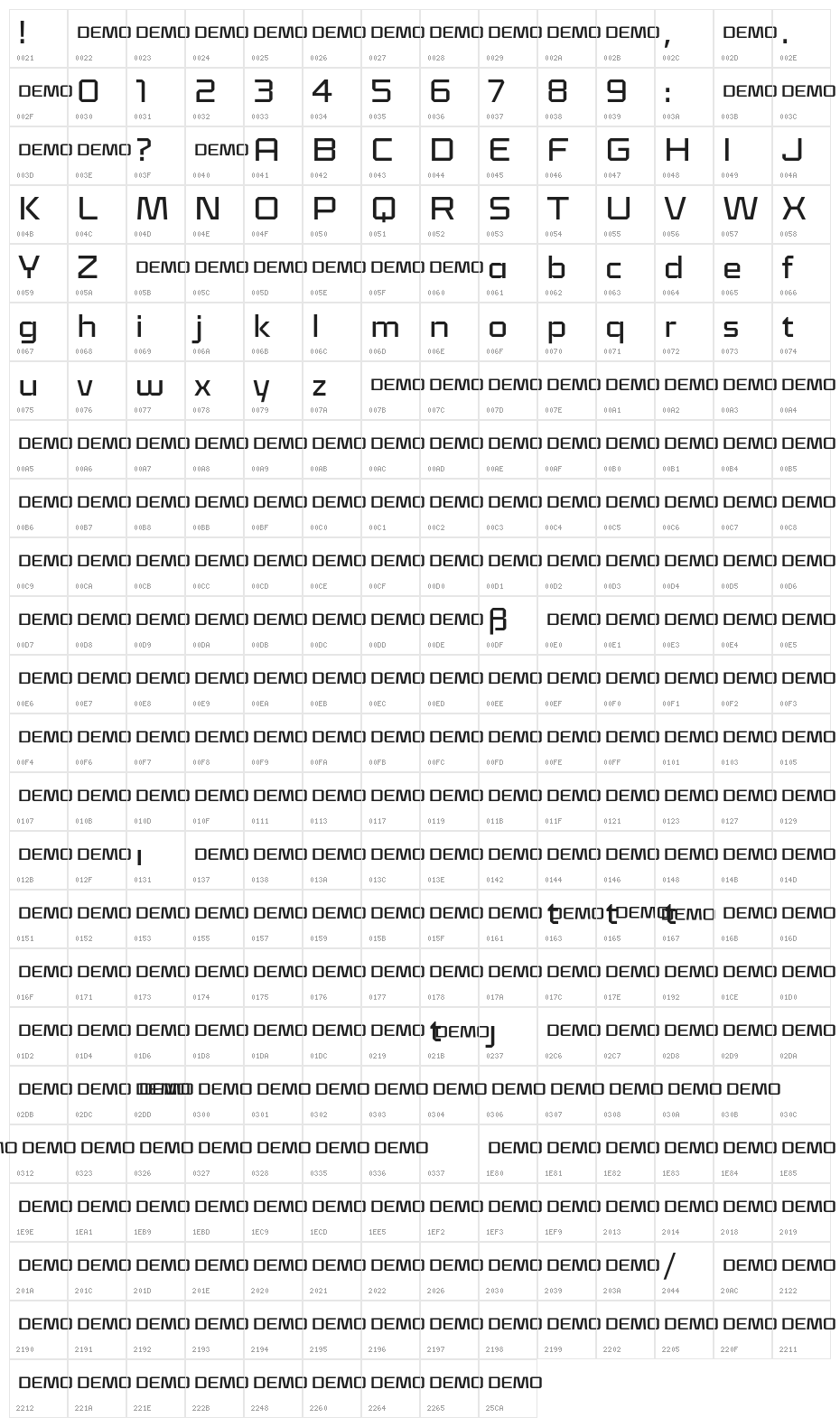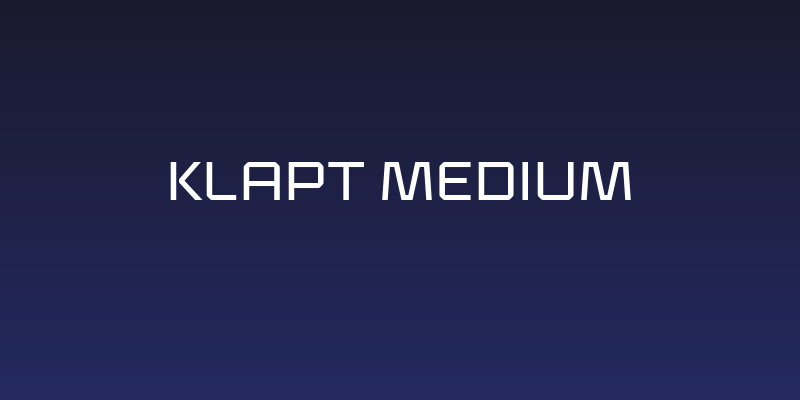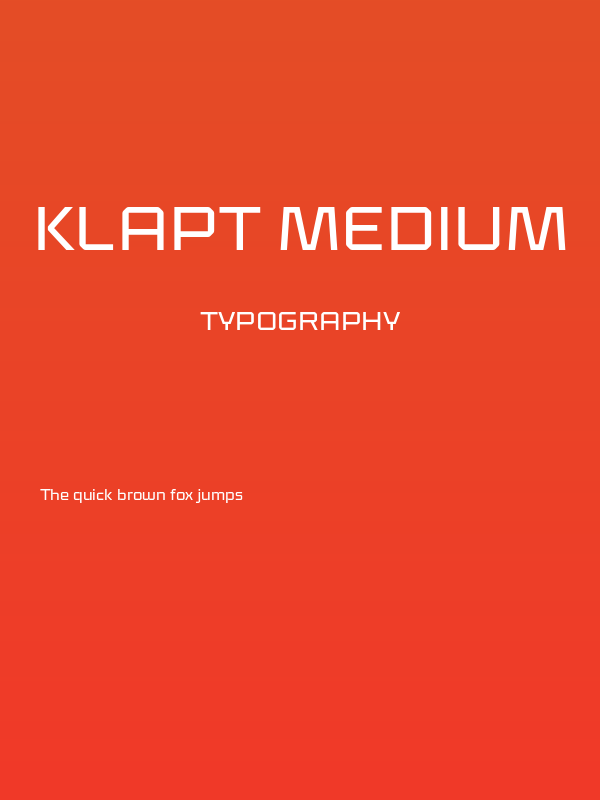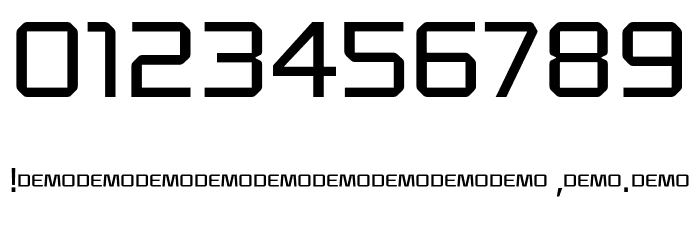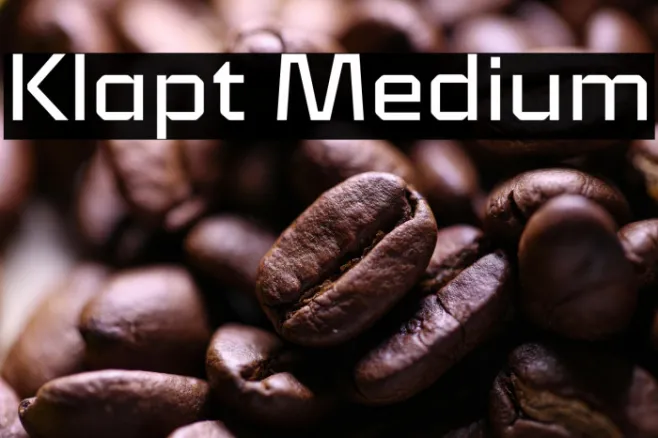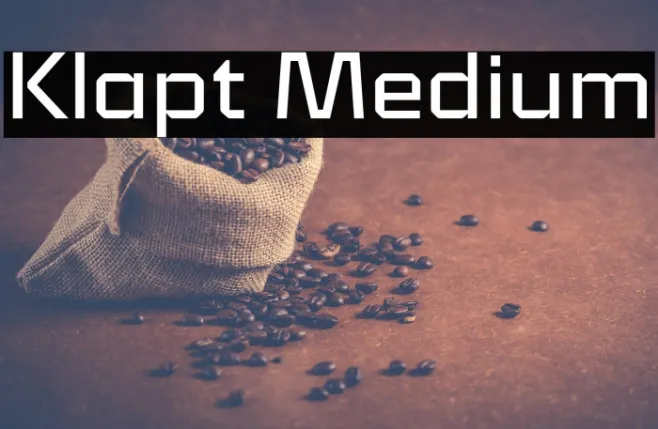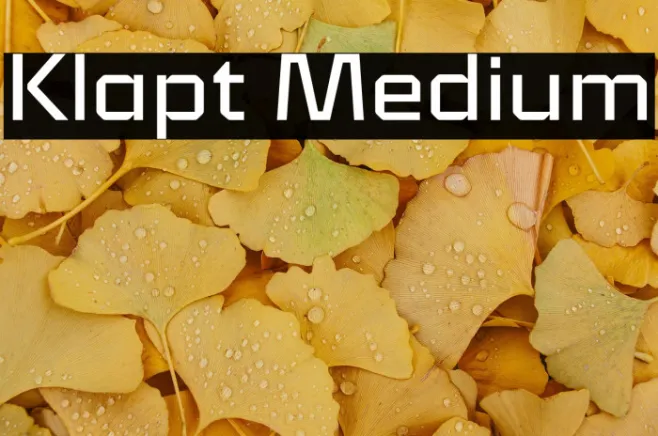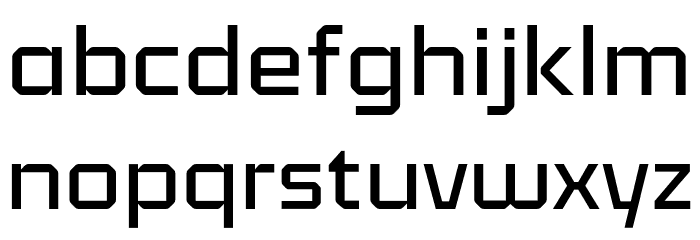
Klapt Medium Font
Klapt Medium Description
This font exhibits a modern, geometric style with a clean and structured appearance. The characters are crafted with precision, featuring straight lines and sharp angles that convey a sense of order and clarity. The uppercase letters are bold and commanding, while the lowercase letters maintain a consistent height, contributing to a uniform look. The numerals are distinct and easily readable, making them suitable for various applications. Special characters are designed to match the overall aesthetic, ensuring cohesion across all elements. This font is versatile, offering a contemporary feel that can enhance both digital and print media.
| Proposed Projects | Ideal for branding, digital interfaces, signage, and editorial design. |